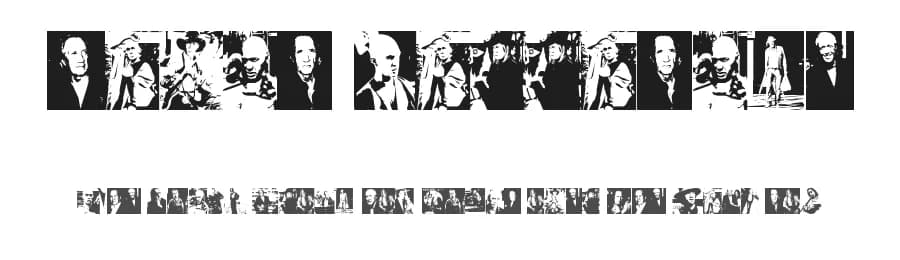
About David Carradine Font
David Carradine is a dingbat font designed by Chanaka Liyanage. It includes 67 glyphs, a regular weight, TTF (TrueType) format, and 89 languages. David Carradine is free to download; check the license details on this page before commercial use. Dingbat fonts like David Carradine work best for icons, ornaments, bullet points, and decorative accents.
David Carradine Font is a versatile dingbats font that works for both headings and body text. Pair it with a contrasting sans-serif or serif font to add visual interest and a clear distinction between titles and body copy.